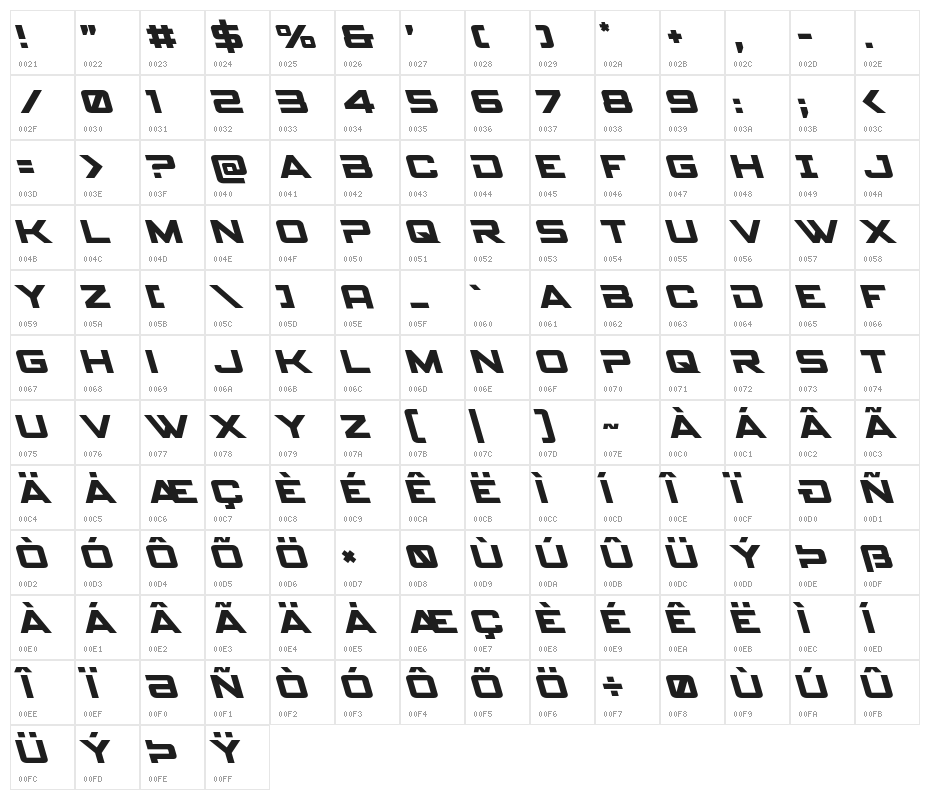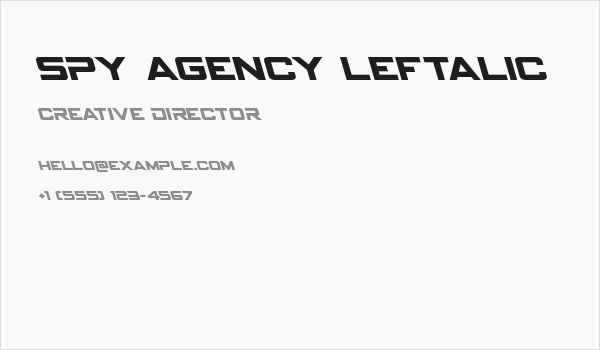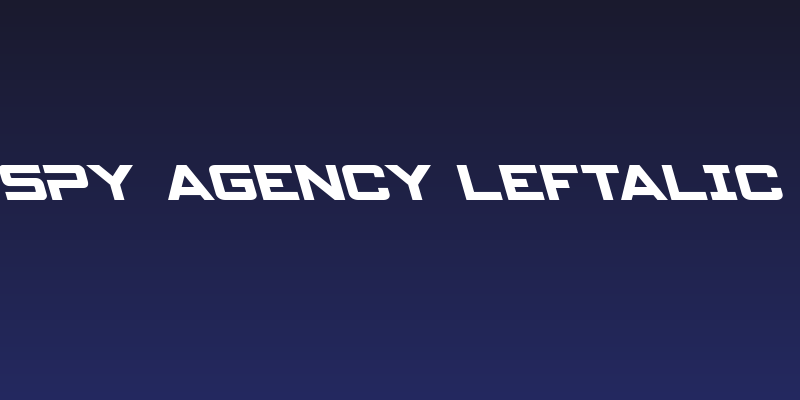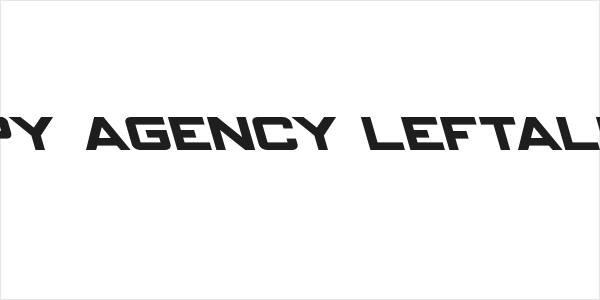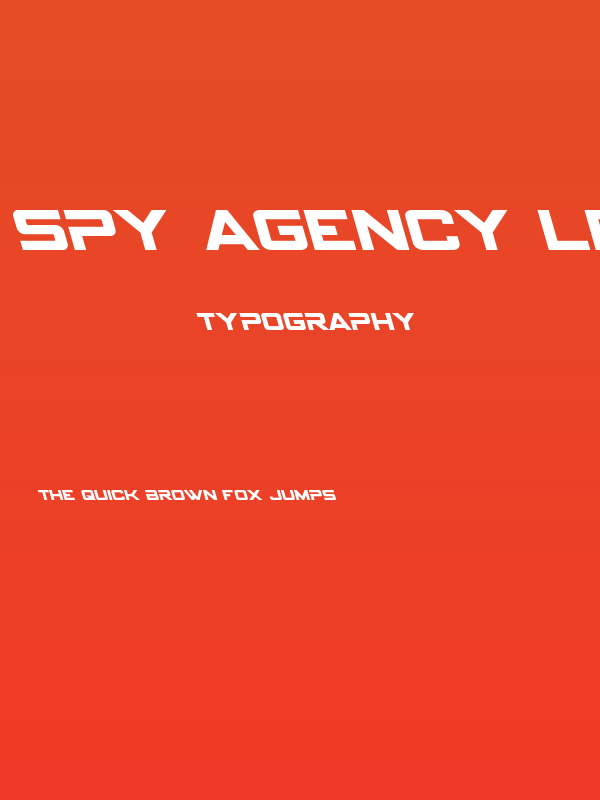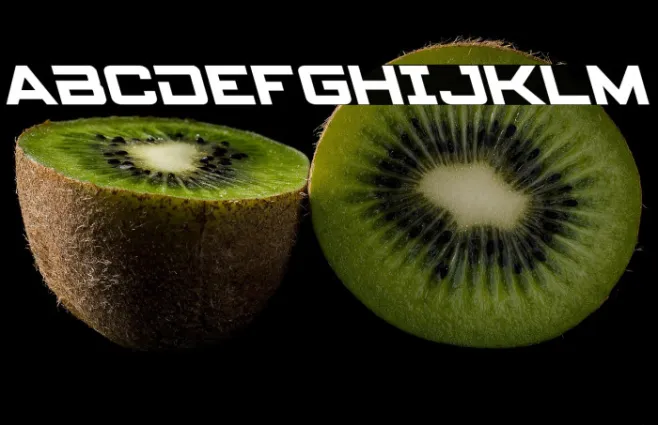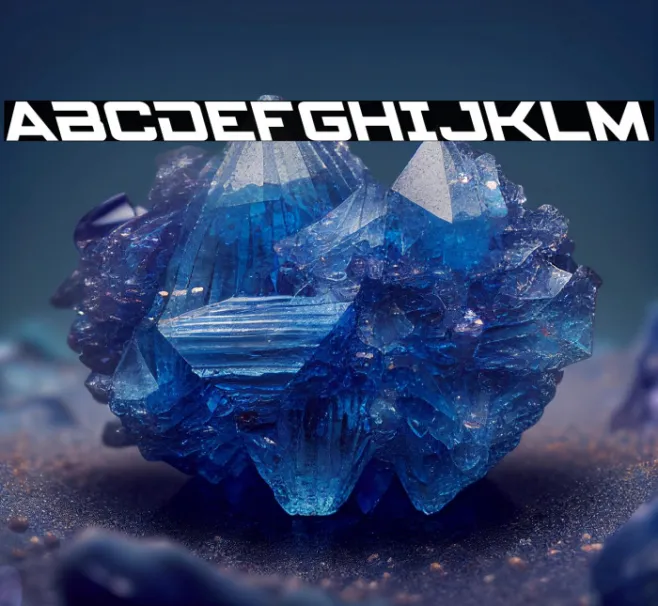
Spy Agency Leftalic Font
Spy Agency Leftalic Description
This font exhibits a bold and futuristic style with a distinct leftward slant, giving it a dynamic and energetic appearance. The characters are angular and geometric, featuring sharp edges and a consistent stroke width that conveys a sense of strength and modernity. The uppercase and lowercase letters maintain a uniform design, enhancing readability while preserving the font's unique aesthetic. The numerals and special characters are crafted with the same attention to detail, ensuring a cohesive look across all elements. This font's design is ideal for projects that require a bold statement and a modern touch.
| Proposed Projects | Ideal for technology branding, sci-fi movie posters, video game titles, and modern advertising campaigns. |